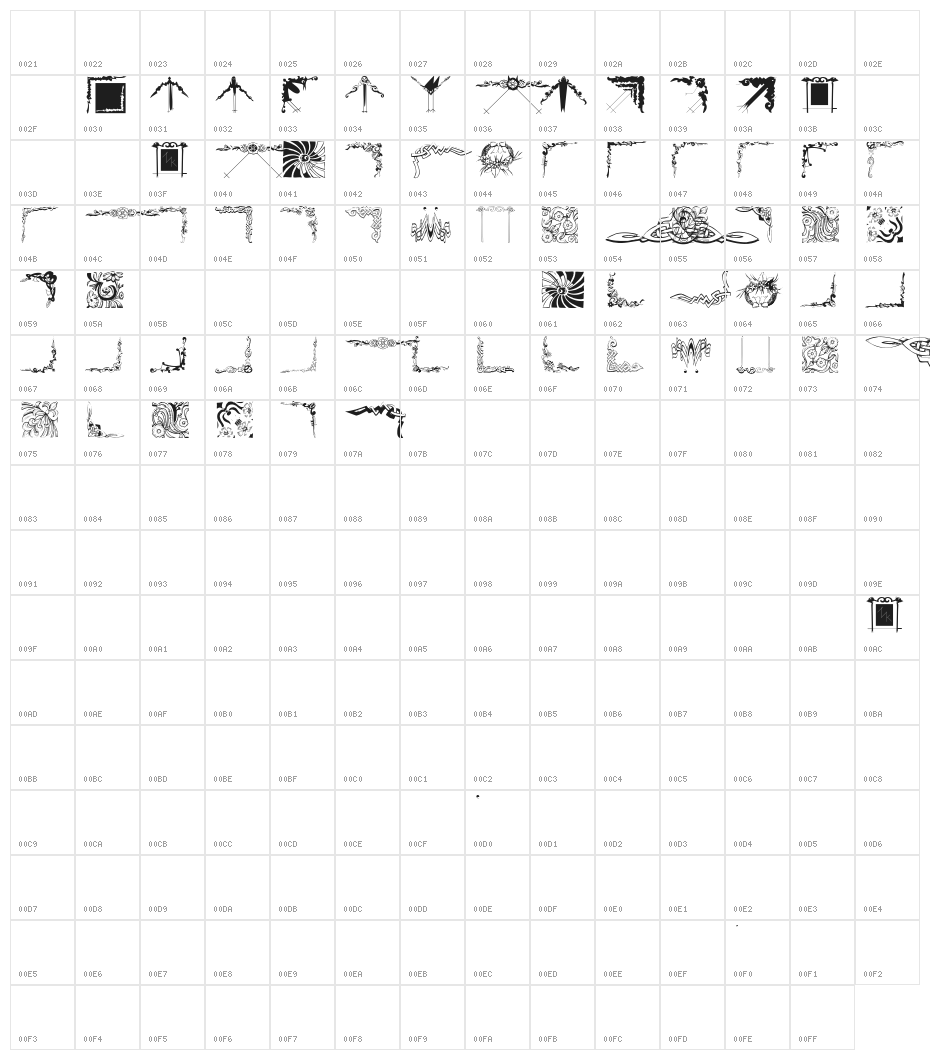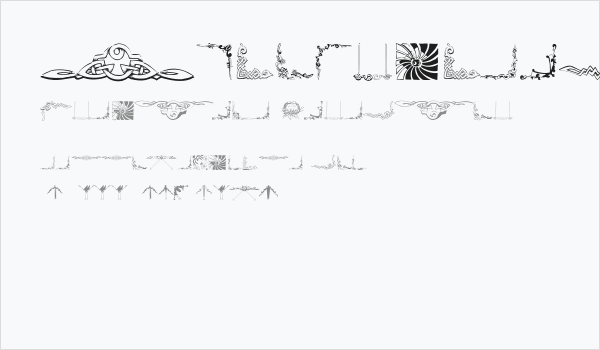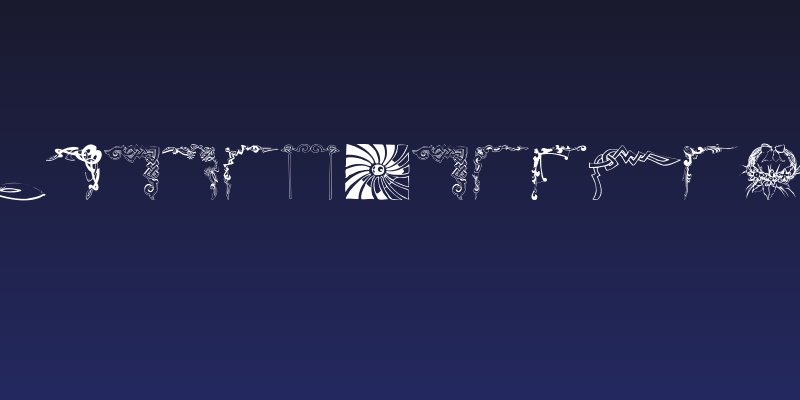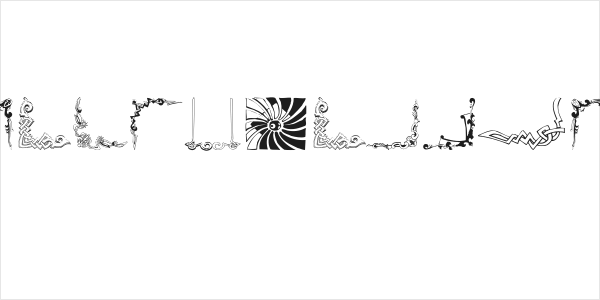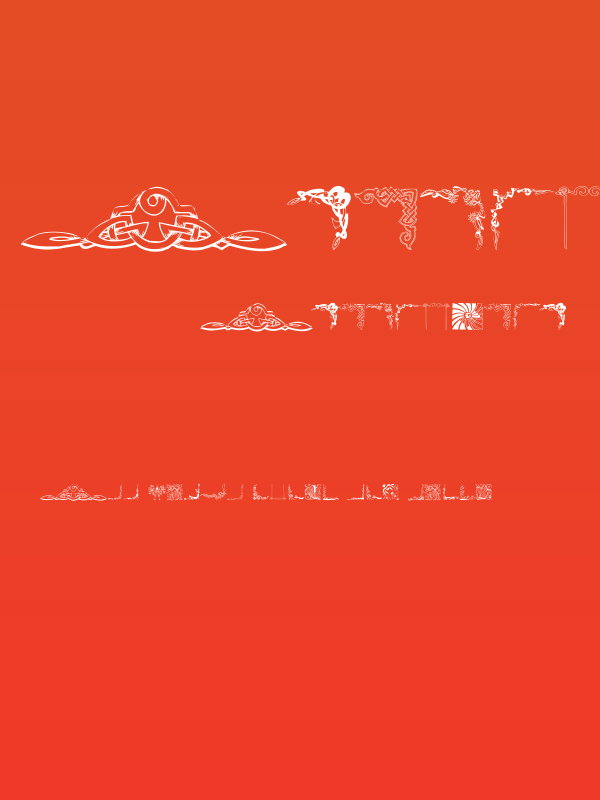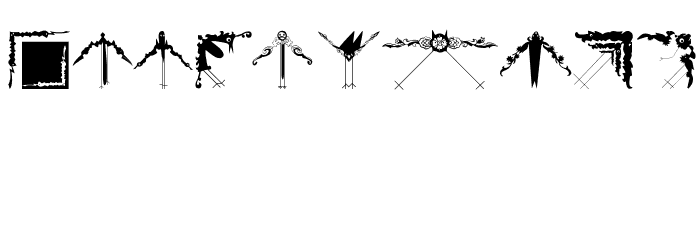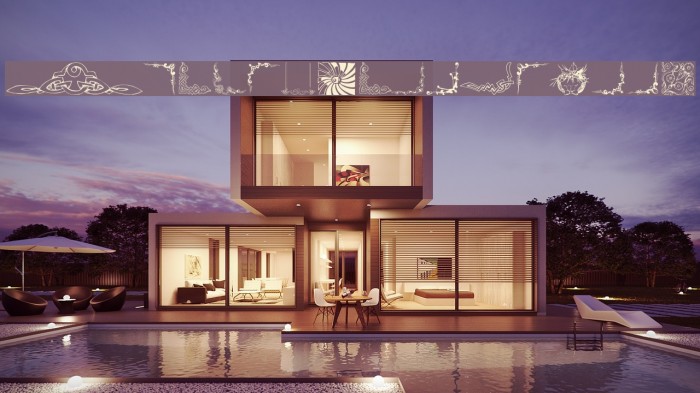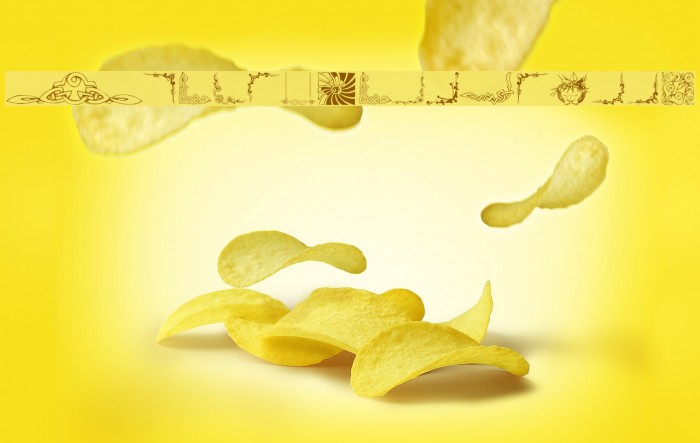
TypoGraphicEdges Font
TypoGraphicEdges Description
This is a highly decorative and artistic font that features intricate and elaborate designs for each character. The characters are adorned with ornate patterns, swirls, and flourishes, giving them a unique and artistic appearance. The font is not designed for readability but rather for decorative purposes, making it suitable for artistic and creative projects. Each character is a work of art in itself, with detailed embellishments that make it stand out. The font's style is reminiscent of vintage or classical art, with a touch of modern creativity. It is ideal for projects that require a strong visual impact and a sense of elegance and sophistication.
| Use Case | Logos, Decorative elements |
| Proposed Projects | Ideal for invitations, posters, artistic projects, and decorative elements in graphic design. |